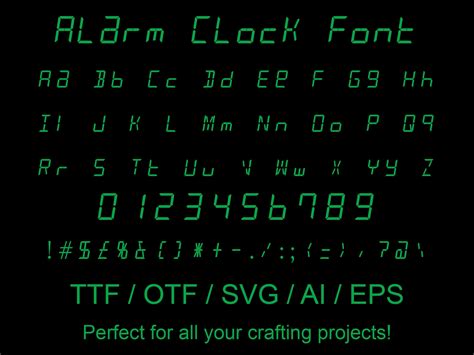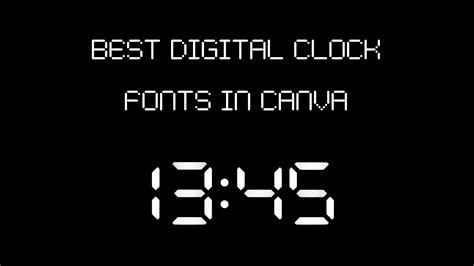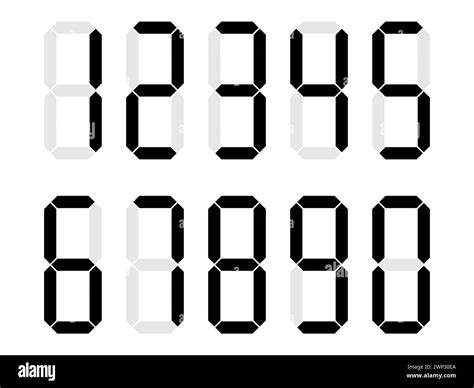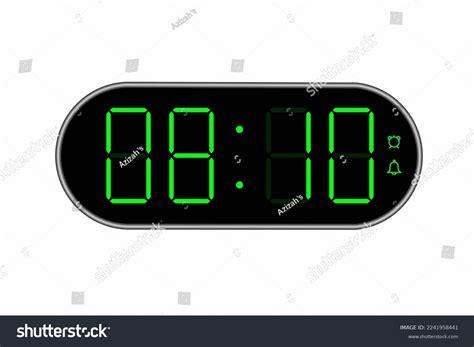
In the rapidly evolving world of digital design, the choice of font can significantly impact the overall aesthetic and readability of a project. One of the most intriguing and versatile options available today is the Digital Time Font. This font family has gained popularity for its clean, modern look and its ability to adapt to various design needs, from web development to graphic design. Understanding the nuances of the Digital Time Font can help designers and developers make informed decisions when selecting typefaces for their projects.
Understanding the Digital Time Font
The Digital Time Font is a typeface designed to evoke a sense of modernity and precision. It is often characterized by its clean lines, geometric shapes, and minimalistic design. This font family is particularly well-suited for digital interfaces, where clarity and readability are paramount. The Digital Time Font comes in various styles, including regular, bold, italic, and condensed versions, providing flexibility for different design requirements.
One of the standout features of the Digital Time Font is its versatility. It can be used in a wide range of applications, from web design and mobile apps to print media and branding. The font's modern aesthetic makes it a popular choice for tech companies, startups, and creative agencies looking to convey a sense of innovation and professionalism.
Key Features of the Digital Time Font
The Digital Time Font offers several key features that make it a valuable addition to any designer's toolkit. These features include:
- Clean and Modern Design: The font's clean lines and geometric shapes give it a contemporary look that is both stylish and professional.
- High Readability: The Digital Time Font is designed with readability in mind, making it an excellent choice for body text as well as headings.
- Versatility: With multiple styles and weights available, the Digital Time Font can be used in a variety of contexts, from web design to print media.
- Scalability: The font's design ensures that it remains legible and visually appealing at both small and large sizes.
Applications of the Digital Time Font
The Digital Time Font is highly versatile and can be used in a variety of applications. Some of the most common uses include:
- Web Design: The font's clean and modern design makes it an excellent choice for web design, where readability and aesthetics are crucial.
- Mobile Apps: The Digital Time Font's scalability and readability make it ideal for mobile app interfaces, ensuring a seamless user experience.
- Print Media: The font's versatility extends to print media, where it can be used for everything from brochures to business cards.
- Branding: The Digital Time Font's modern aesthetic makes it a popular choice for branding, helping companies convey a sense of innovation and professionalism.
- Digital Marketing: The font's clean design and high readability make it an excellent choice for digital marketing materials, such as email newsletters and social media posts.
How to Use the Digital Time Font in Web Design
Using the Digital Time Font in web design can significantly enhance the visual appeal and readability of a website. Here are some steps to effectively integrate the Digital Time Font into your web design projects:
1. Choose the Right Style: Select the appropriate style and weight of the Digital Time Font based on the specific design requirements. For example, use the bold style for headings and the regular style for body text.
2. Set the Font Size: Ensure that the font size is appropriate for the intended use. For headings, a larger font size can help draw attention, while for body text, a smaller size ensures readability.
3. Adjust Line Height and Letter Spacing: Proper line height and letter spacing can improve readability. For the Digital Time Font, a line height of 1.5 to 1.6 and a letter spacing of 0.05 to 0.1 em are generally recommended.
4. Use Contrasting Colors: Choose colors that contrast well with the background to ensure the text is easily readable. For example, use dark text on a light background or vice versa.
5. Test on Different Devices: Ensure that the Digital Time Font looks good and is readable on various devices, including desktops, tablets, and smartphones.
π Note: Always test the font on different screen sizes and resolutions to ensure consistency and readability across all devices.
How to Use the Digital Time Font in Graphic Design
In graphic design, the Digital Time Font can be used to create visually appealing and professional-looking designs. Here are some tips for using the Digital Time Font in graphic design projects:
1. Select the Appropriate Style: Choose the style and weight of the Digital Time Font that best suits the design's purpose. For example, use the bold style for headlines and the regular style for body text.